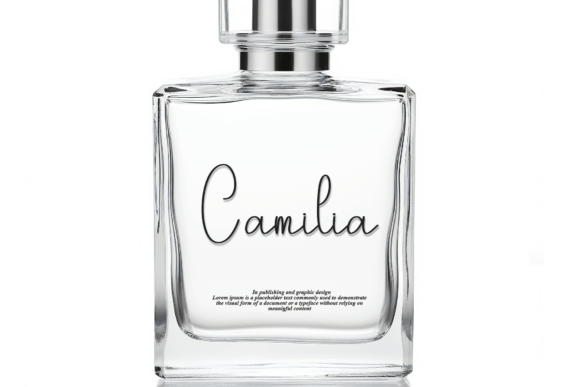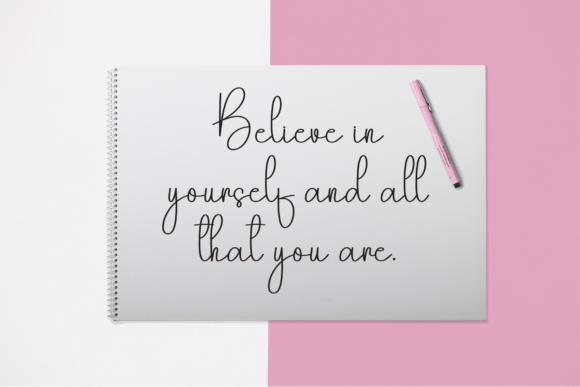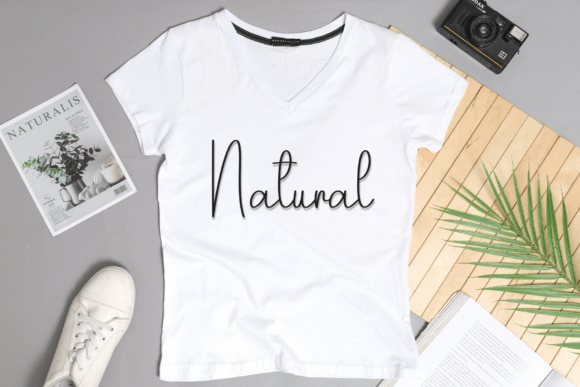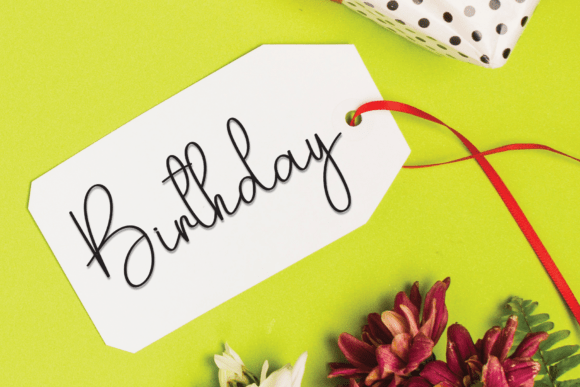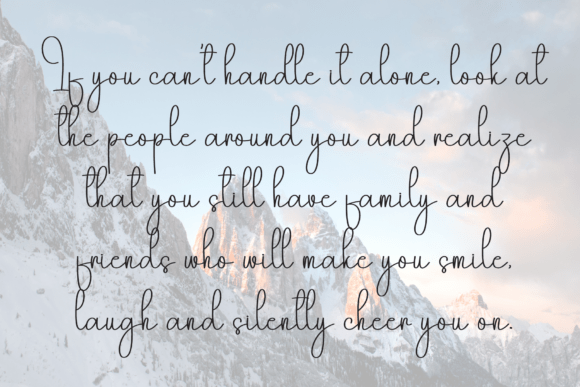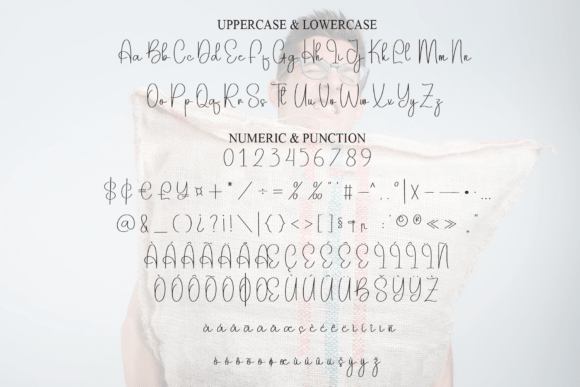
Introducing Heavy Font: Elevate Your Designs with Artistic Flair and Contemporary Elegance
In the world of typography, a font can make or break a design. For designers and crafters looking to add a touch of sophistication and creativity to their work, Heavy Font is an exceptional choice. This stylish script font is designed to bring a modern twist to traditional hand-painted calligraphy, offering a unique blend of fluid brush strokes, dynamic curves, and expressive letterforms.
The Characteristics of Heavy Font
Heavy Font is characterized by its distinctive features, which set it apart from other fonts. Its fluid brush strokes give it a natural, hand-painted look that is both elegant and artistic. The dynamic curves and expressive letterforms add a level of sophistication, making it perfect for designs that require a touch of luxury and refinement.
One of the standout features of Heavy Font is its ability to capture the essence of hand-painted calligraphy with a modern twist. The font’s design is inspired by traditional calligraphy, but with a contemporary edge that makes it perfect for modern designs. Whether you’re working on a logo, invitation, packaging, or social media graphics, Heavy Font is an excellent choice.
Uses of Heavy Font
Heavy Font is an incredibly versatile font that can be used in a variety of design applications. Some of the most popular uses for this font include:
- Logos: Heavy Font is perfect for creating unique and memorable logos that stand out from the crowd. Its elegant and artistic design makes it an excellent choice for businesses and brands looking to establish a strong visual identity.
- Invitations: Whether you’re designing wedding invitations, party invites, or formal events, Heavy Font adds a touch of sophistication and elegance to your designs.
- Packaging: Heavy Font is an excellent choice for packaging design, particularly for luxury brands or products that require a high-end look and feel.
- Social Media Graphics: With its natural flow and vibrant character, Heavy Font is perfect for creating engaging social media graphics that capture the attention of your audience.
Benefits of Using Heavy Font
So, why choose Heavy Font for your design projects? Here are just a few benefits of using this exceptional font:
- Visual Impact: Heavy Font delivers a significant visual impact, making it perfect for designs that require attention-grabbing typography.
- Versatility: This font is incredibly versatile, making it suitable for a wide range of design applications.
- Creative and Sophisticated: Heavy Font adds a creative and sophisticated touch to any design, making it perfect for designers and crafters looking to elevate their work.
Tips for Using Heavy Font Effectively
To get the most out of Heavy Font, here are a few tips to keep in mind:
- Use it sparingly: While Heavy Font is an exceptional font, it’s best used sparingly to avoid overwhelming the design. Use it for headings, titles, or key messages to create visual impact.
- Pair it with complementary fonts: Heavy Font pairs well with clean, sans-serif fonts that provide a nice contrast to its elegant and artistic design.
- Experiment with colors and textures: Don’t be afraid to experiment with different colors and textures to add depth and interest to your designs.
In conclusion, Heavy Font is an exceptional choice for designers and crafters looking to add a touch of artistic flair and contemporary elegance to their work. With its fluid brush strokes, dynamic curves, and expressive letterforms, this font delivers both visual impact and versatility. Whether you’re working on a logo, invitation, packaging, or social media graphics, Heavy Font is an excellent choice.